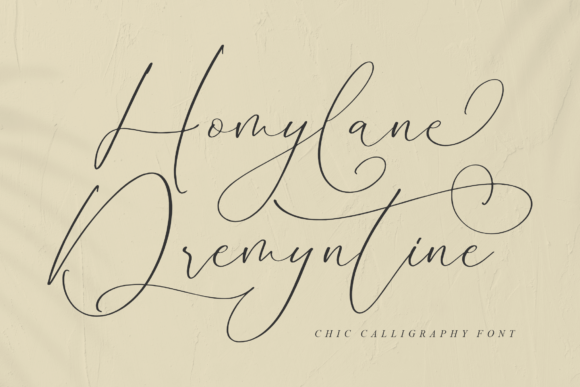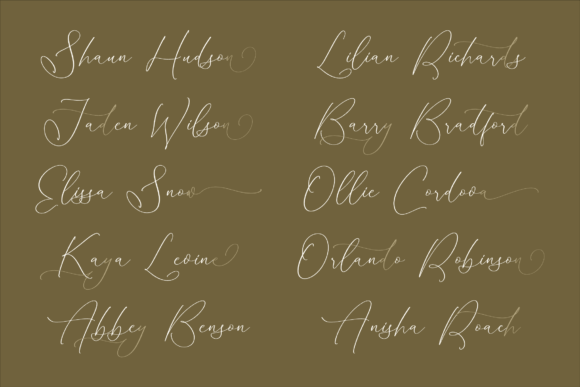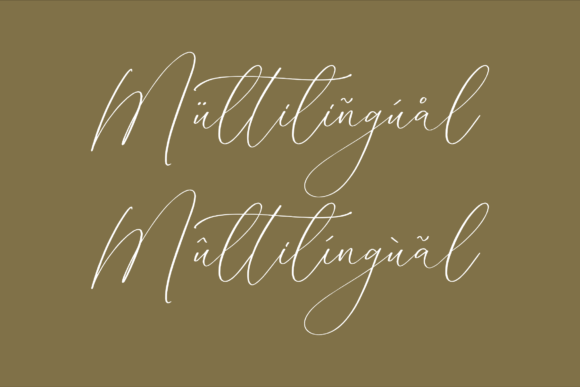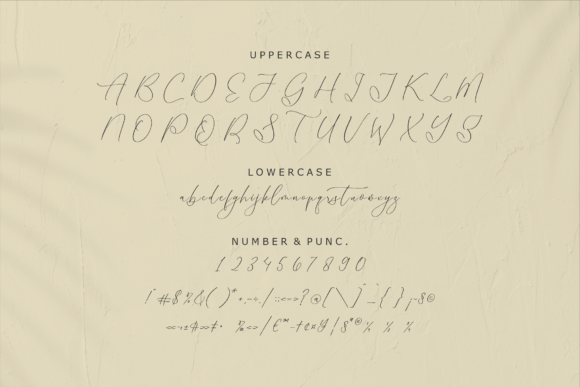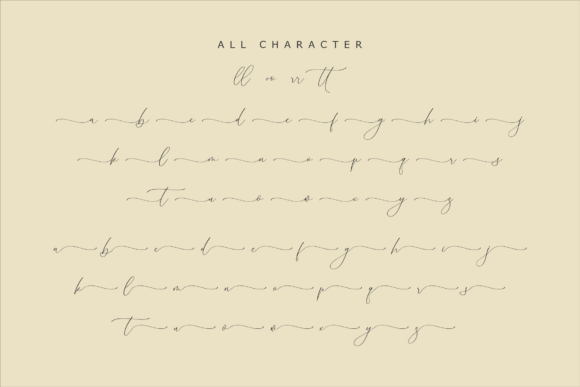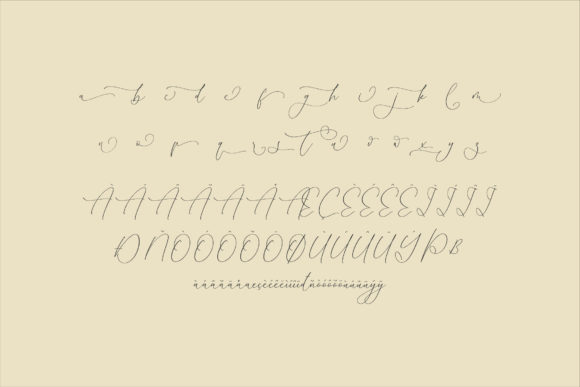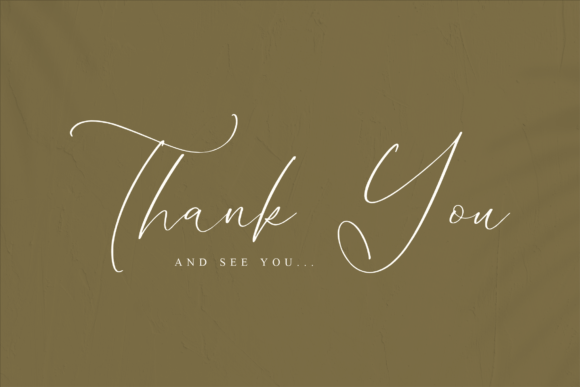
A Chic and Stylish Handwritten Script
Homylane Dremyntine is a beautifully crafted handwritten font that blends casual charm with modern elegance. Each letter features smooth, flowing strokes and balanced shapes that create a relaxed yet sophisticated look. The design feels warm, approachable, and incredibly versatile, making it perfect for a wide variety of creative uses.
Whether you’re designing professional branding or personal projects, Homylane Dremyntine helps your text stand out with effortless style.
Homylane Dremyntine adapts seamlessly to all types of design work. It’s ideal for logos and brand identities. The handwritten style gives your business a personal, authentic feel while staying polished and professional.
Use Homylane Dremyntine for product packaging, labels, and shopping bags. The smooth script adds sophistication and makes your products feel premium.
This font also shines in social media graphics, blog headers, and Pinterest pins. Its chic look captures attention and gives your content a fresh, modern vibe.
Homylane Dremyntine is perfect for greeting cards, invitations, and event signage. The casual elegance makes every detail feel genuine and memorable.
The font includes uppercase and lowercase letters, numbers, and punctuation marks. Ligatures are included so your text flows naturally and looks cohesive.
Clear, Elegant, and Easy to Read
Even with its decorative style, Homylane Dremyntine remains clear and legible at any size. The balanced spacing between letters ensures your text stays neat, whether you use it for headlines or smaller captions.
Many designers pair Homylane Dremyntine with a clean sans-serif font for contrast. Use the script for titles and the sans-serif for body text. This combination guides the reader’s eye and keeps layouts modern and organized.
To highlight Homylane Dremyntine’s chic style, use neutral backgrounds and soft color palettes. Shades like ivory, blush, and pale gray allow the graceful lines to stand out without distractions.
When designing branding materials or packaging, consider adding subtle textures or simple illustrations to complement the font’s relaxed feel. For social media and marketing, keep layouts clean so the script remains the main focus.
Think about the mood you want to create. Homylane Dremyntine is perfect for designs that should feel stylish, friendly, and sophisticated.
Homylane Dremyntine is more than just a handwritten script. It’s a creative tool that transforms ordinary text into something special. Its smooth curves and casual elegance bring warmth and personality to any project.
Adding Homylane Dremyntine to your font collection means you’ll always have a reliable option for any type of creative work. From branding and packaging to social media and stationery, this font adapts effortlessly to your ideas.